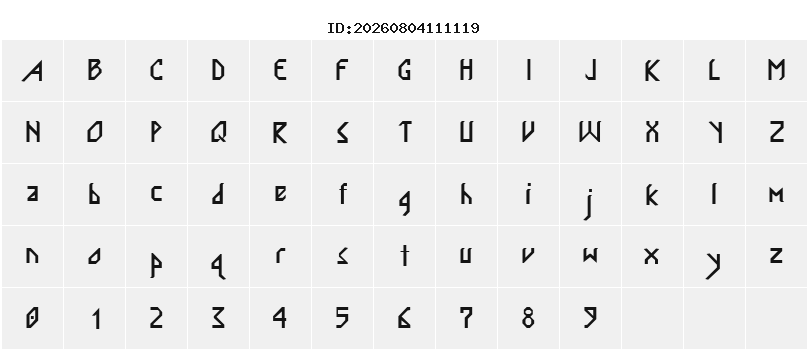
Nordic.ttf is a modern, elegant sans-serif font designed for ultimate readability and visual harmony. Perfect for branding, headlines, web design, and print materials.